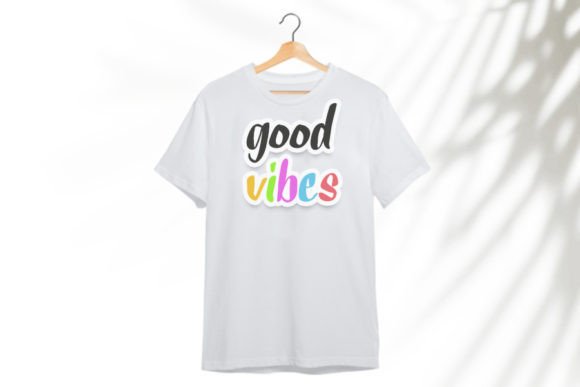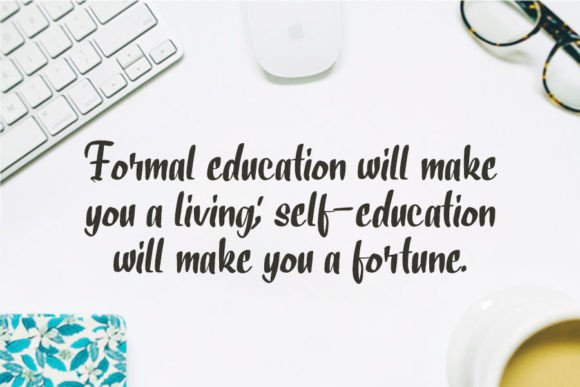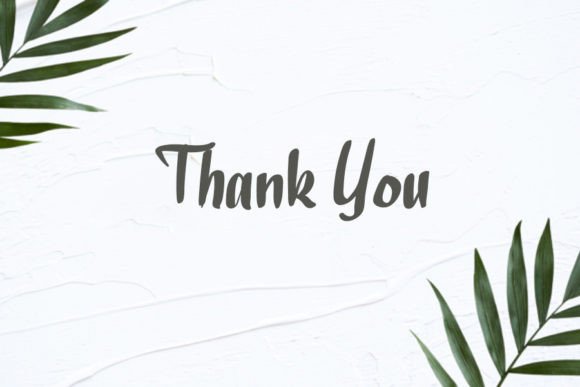
Introduction to Meaningful Font
Meaningful is a simple, joyful and ravishing handwritten font.
It has an adaptable style and it is ideal for a wide range of formal or informal designs It looks beautiful on a variety of designs requiring a personalized style, such as wedding invitations, thank you cards, weddings, greeting cards, logos and so on.
Key Features of Meaningful Font
Why Choose Meaningful Font?
Meaningful Font offers exceptional quality and versatility, making it a valuable addition to your design toolkit. Whether you’re creating for personal projects or commercial use, Meaningful Font delivers professional results.